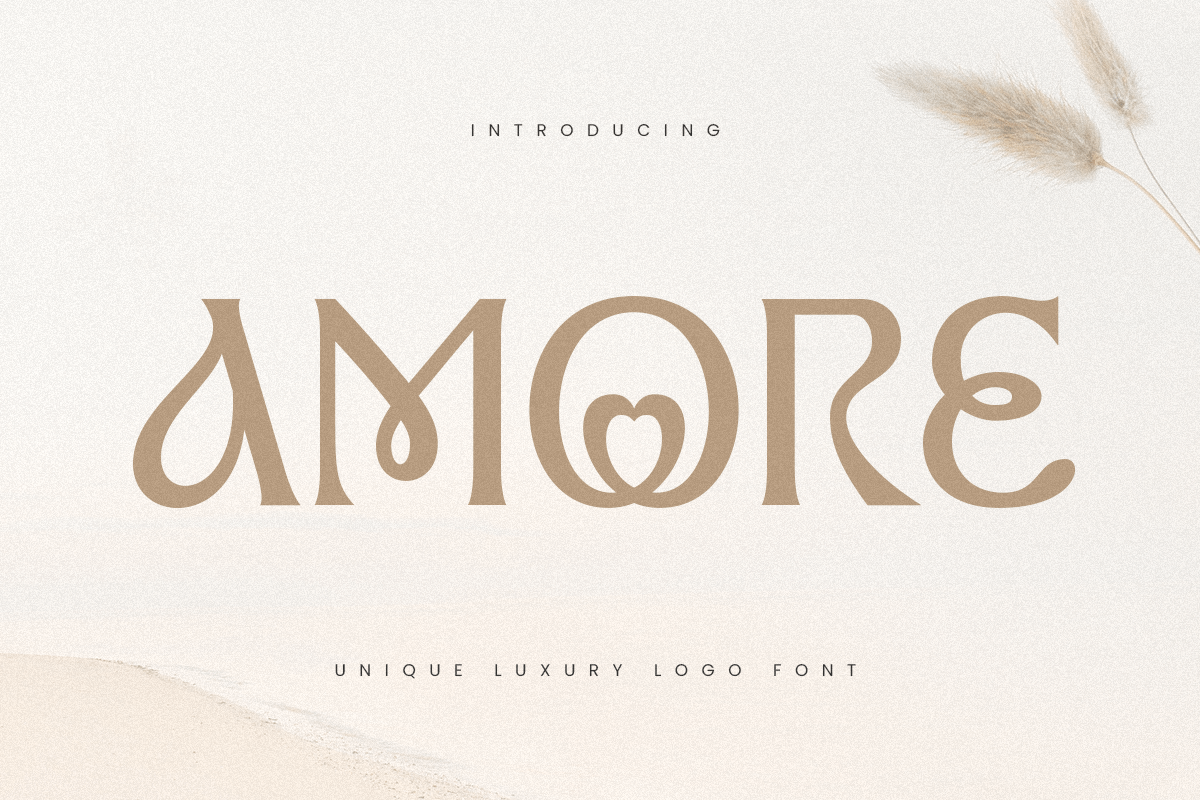
Amore
-Unique Luxury Logo Font
Amore
Introducing Amore, the epitome of luxury and cinematic elegance in a serif font. Perfectly crafted for sophisticated and high-end designs, Amore brings a touch of class and refinement to any project.
Elevate your designs with Amore, the luxury serif font that exudes sophistication and style. Whether for high-end branding, cinematic projects, or elegant typography, Amore adds a timeless and refined touch to your work. Make a statement with Amore and let your designs shine with unparalleled elegance.